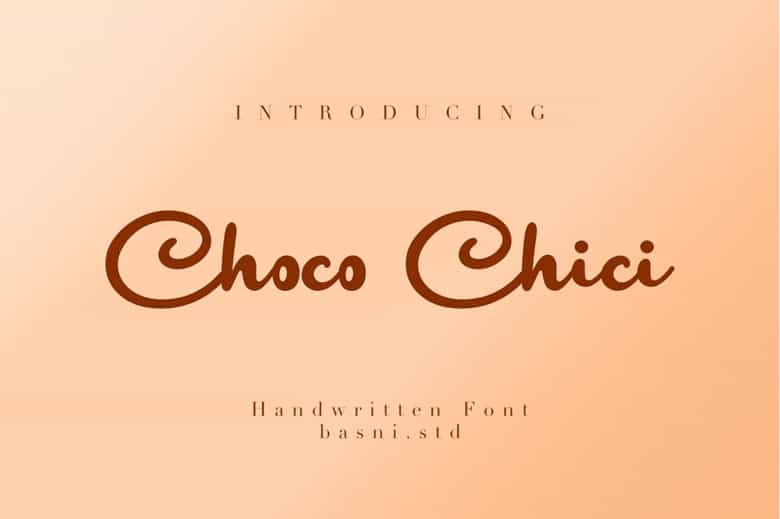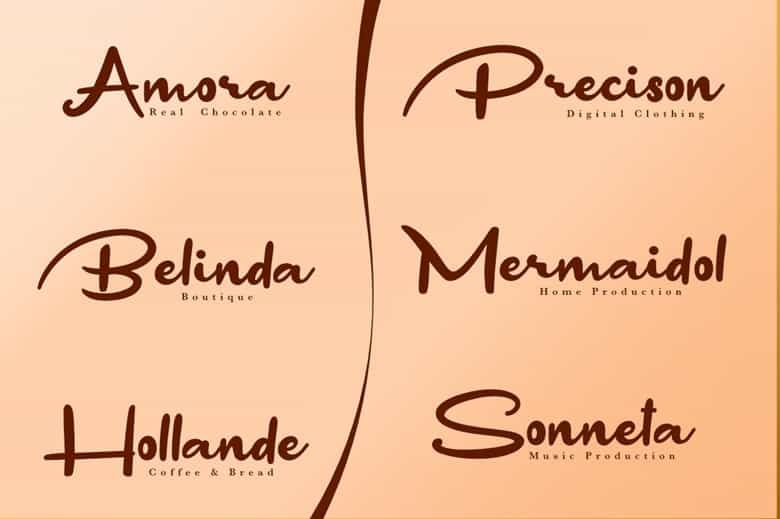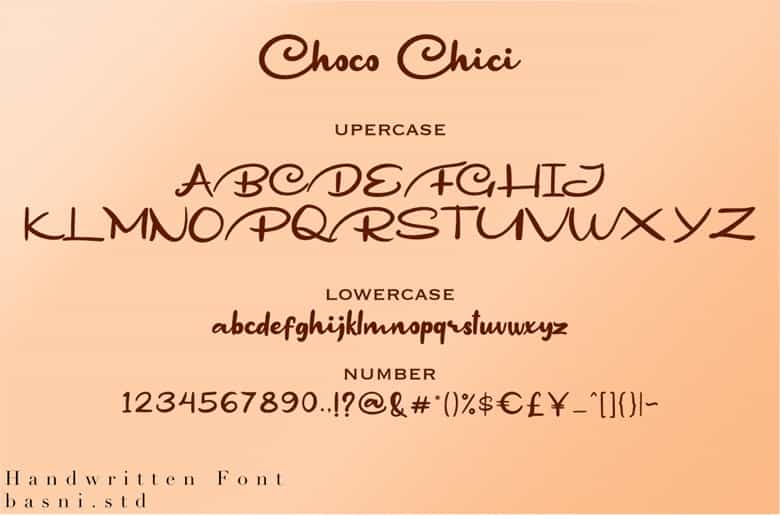
Discover Choco Chici Font, part of the Handwritten collection—a versatile and unique font perfect for adding a personal touch to your projects. Download it for free and enjoy crafting designs with style, from invitations to social media posts. This font is available exclusively for personal use, giving you the freedom to create without limits. Unlock your creativity with Choco Chici Font today!
Choco Chici is one of the best handwritten font that will give your work a unique class through its classy and soft curves. It can be used for any general product packaging, branding project, magazine covers, social media purpose, wedding or just to write words above the background.